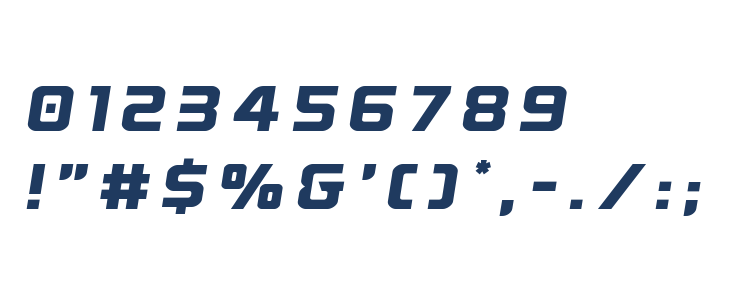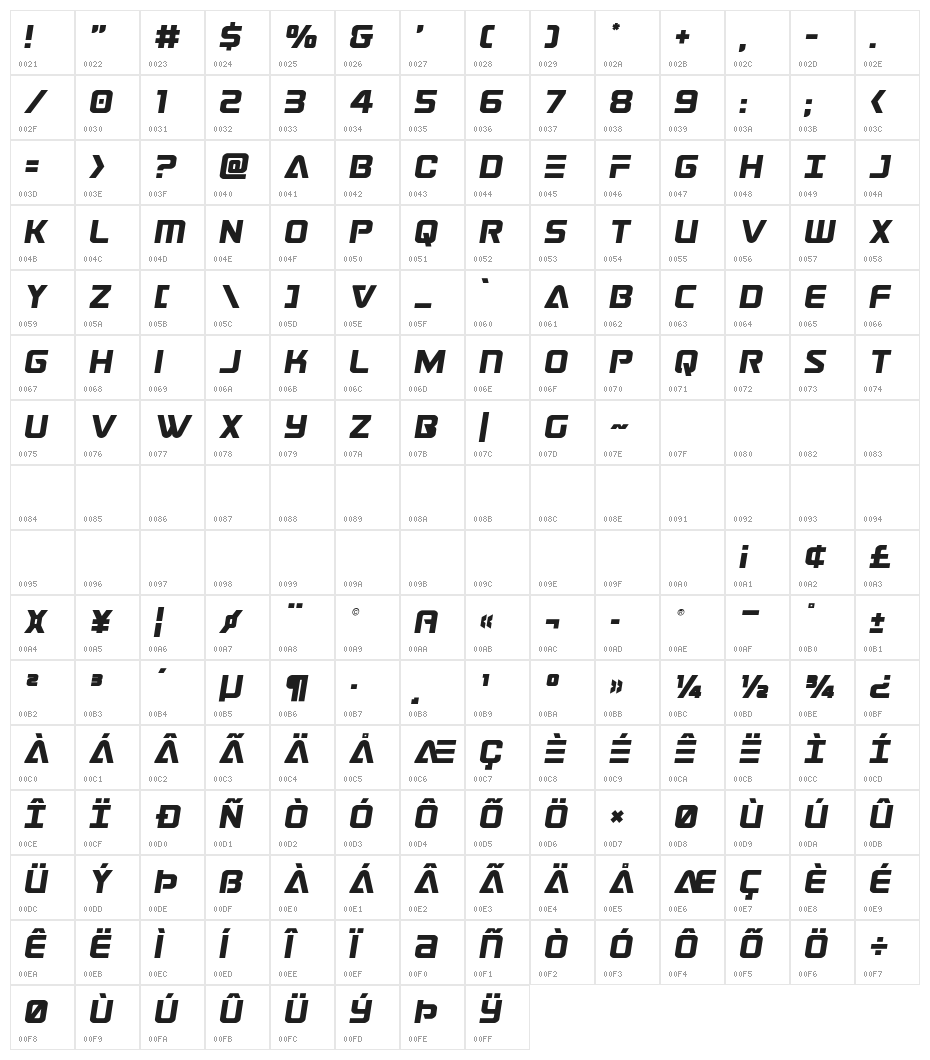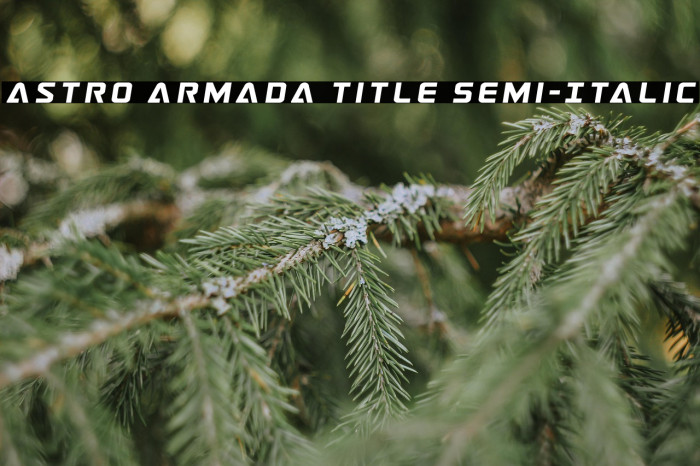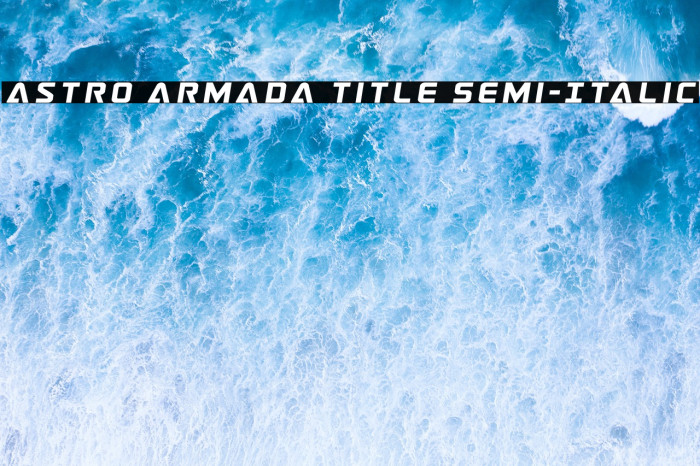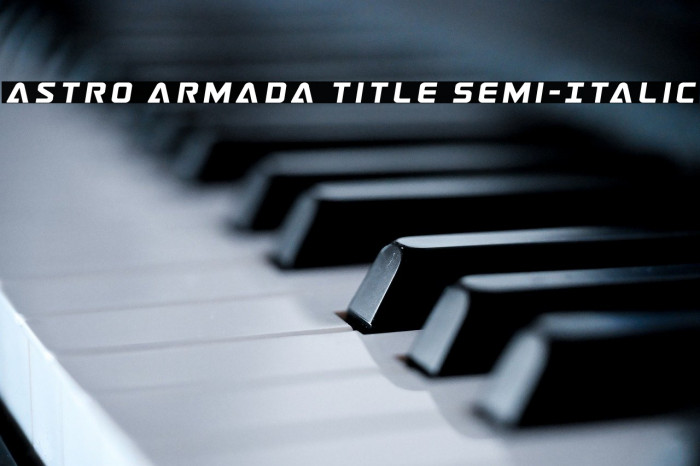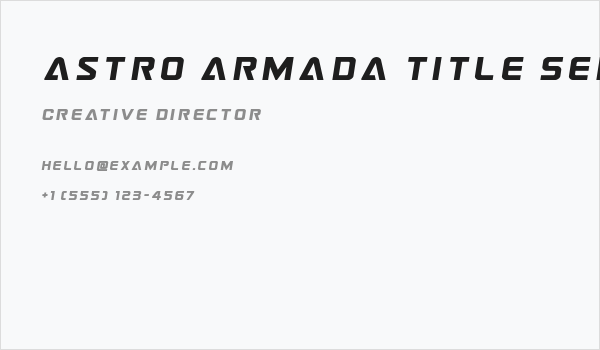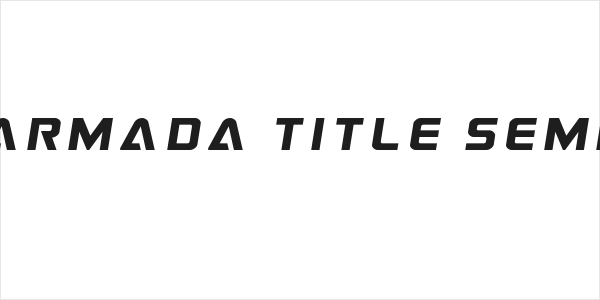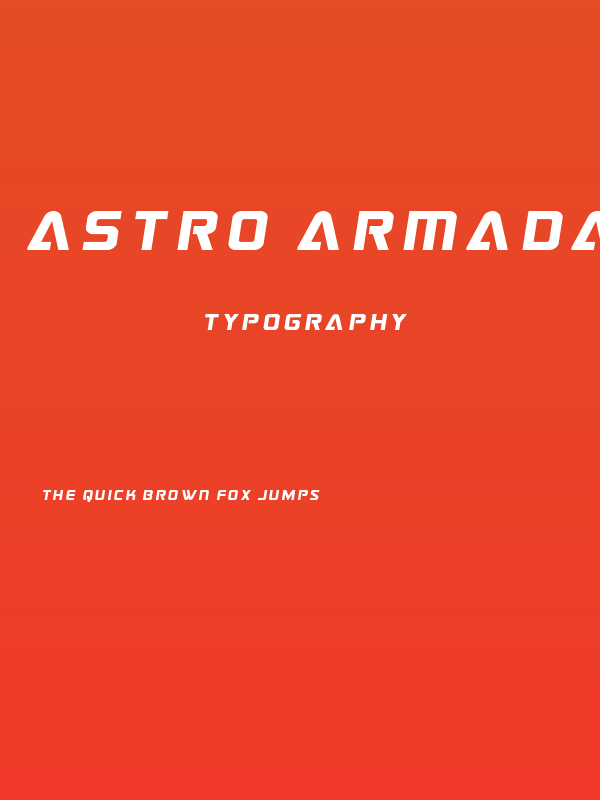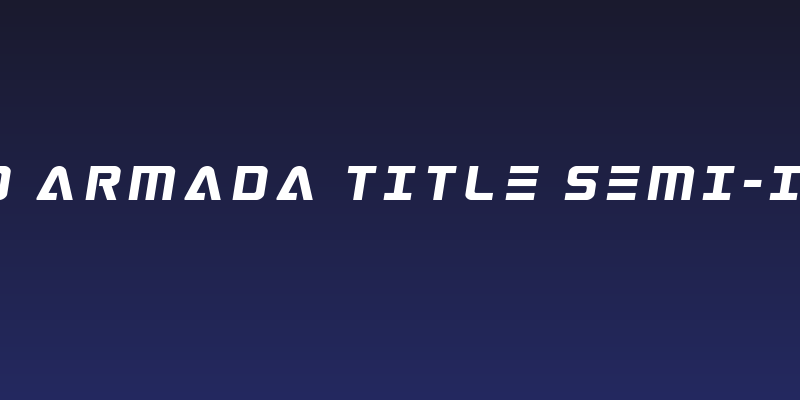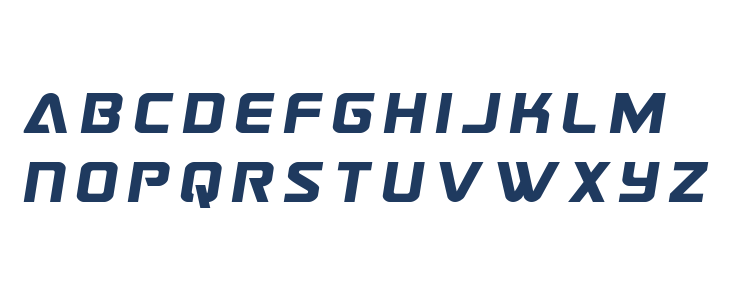
Astro Armada Title Semi-Italic Font
Astro Armada Title Semi-Italic Description
This font features a futuristic and dynamic design with a semi-italic slant, giving it a sense of motion and modernity. The characters are bold and angular, with a distinct geometric style that emphasizes sharp edges and clean lines. The uppercase and lowercase letters maintain a consistent width, contributing to a uniform appearance. The numerals and special characters follow the same design principles, ensuring cohesion across all elements. This font's unique style makes it suitable for projects that require a contemporary and tech-savvy aesthetic.
| Proposed Projects | Ideal for sci-fi themed designs, technology branding, video game titles, and modern advertising. |